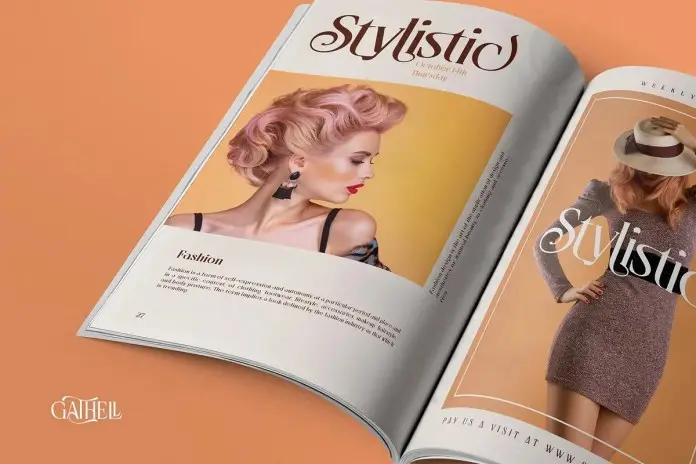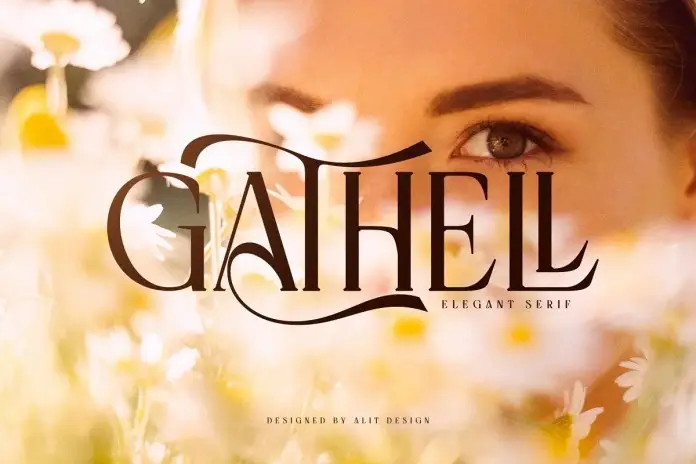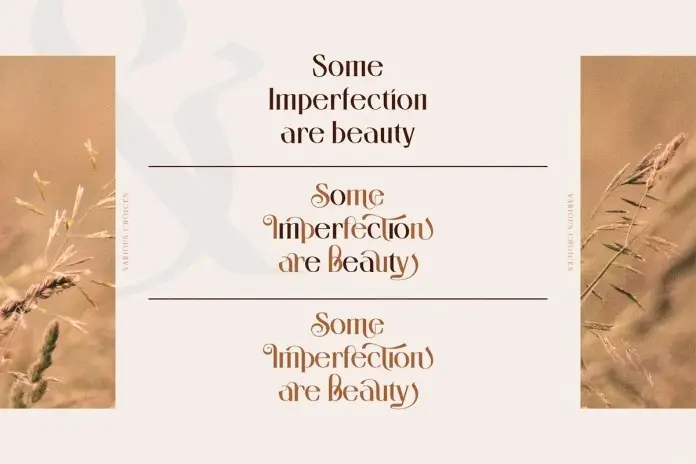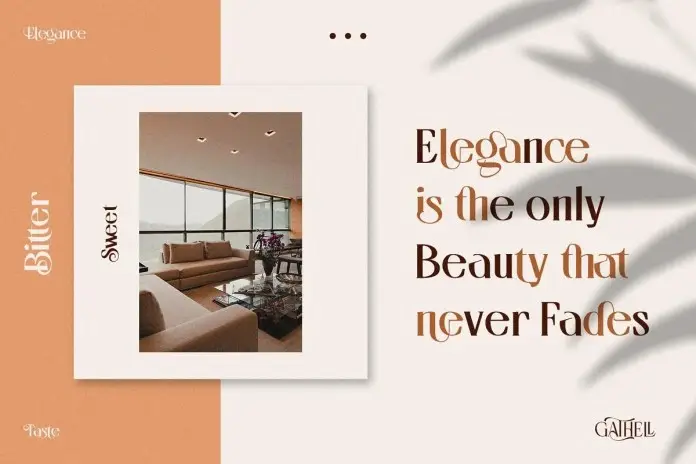
Gathell Serif Font
The Gathell Serif Font is a beautifully crafted typeface that combines elegance with readability. Perfect for a variety of applications, this font is ideal for branding, logos, web design, print materials, and user interfaces.
Gathell features a classic serif design with a modern twist, offering multiple weights to suit your project needs. Available formats include OTF and TTF, ensuring compatibility across various platforms.
Utilize Gathell Serif Font for headlines, body text, or any design that requires a touch of sophistication. Its versatility makes it suitable for both digital and print projects.